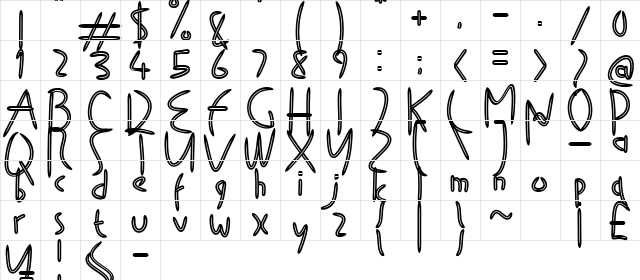
Tooth Picks Regular Font Preview
Tooth Picks Regular
Tooth Picks Regular Font Details
| Designer | Joe Letter |
Design Context for Tooth Picks Typeface
Tooth Picks is a composed and adaptable typeface that performs quietly and consistently across a wide range of design contexts.